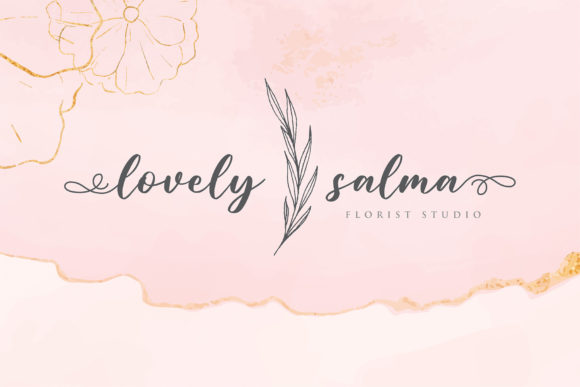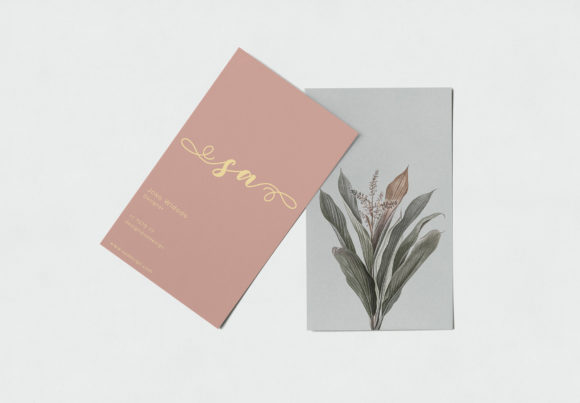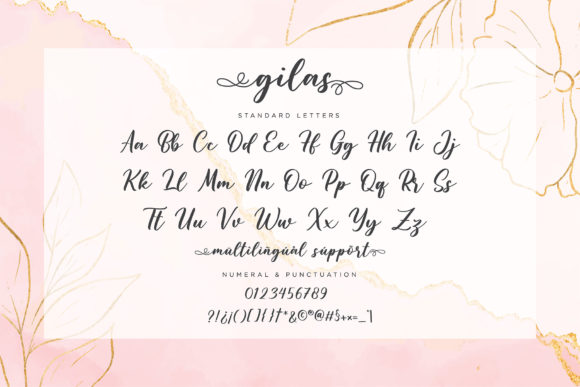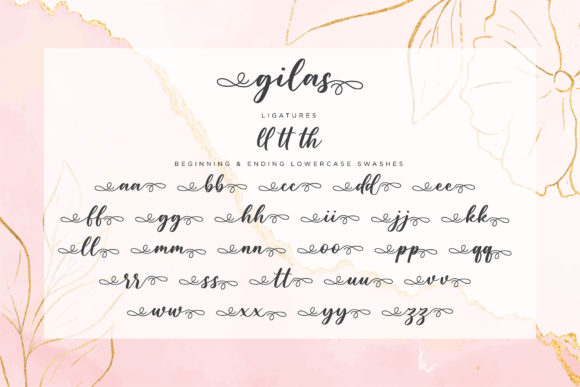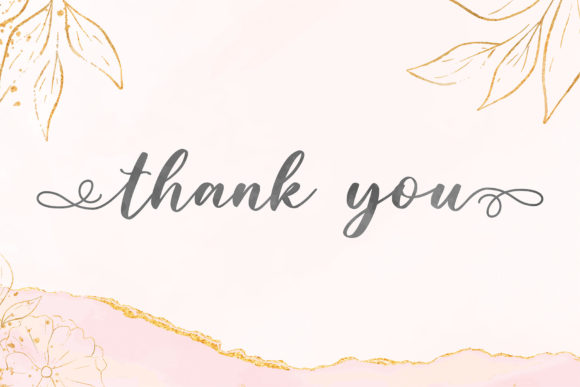
The Magical World of Gilas Font: A Designer’s Delight
I’ll never forget the time I was working on a project for a client who wanted a font that exuded elegance and sophistication. I had spent hours scouring the internet for the perfect font, but nothing seemed quite right. That was until I stumbled upon Gilas Font. ✨ This beautiful, handwritten font has been a game-changer for me, and I’m excited to share its magic with you.
A Personal Review of Gilas Font
- ✨ Timeless elegance: Gilas Font has a classic style that never goes out of fashion.
- ✅ Authentic calligraphy: The font’s handwritten feel is warm and inviting.
- ✅ Friendly feel: Despite its elegance, Gilas Font still feels approachable and friendly.
- ✅ Versatility: This font is perfect for a wide range of design projects, from wedding invitations to branding materials.
While Gilas Font is an amazing font, there are a few things to keep in mind. 🤔
- ⚠️ Limited use of all-caps: While the font looks beautiful in upper case, it’s not the most effective choice for headlines or titles that require all-caps.
- ⚠️ Some glyphs may require manual adjustment: Depending on the design, you may need to adjust some glyphs to get the perfect fit.
- Experiment with OpenType features, such as ligatures and stylistic alternates, to add visual interest to your design.
- Explore the font’s glyphs and OpenType features, such as swashes and ornaments, to add a touch of elegance to your design.
The Story Behind Gilas Font
Gilas Font was created by a talented designer who wanted to bring a touch of magic to the world of typography. Inspired by the elegance of calligraphy and the warmth of handwritten fonts, Gilas Font was born. 🌟
Q: What makes Gilas Font so special?
A: Gilas Font is a unique blend of timeless elegance and authentic calligraphy, making it perfect for a wide range of design projects.
Q: Is Gilas Font easy to read?
A: Yes, Gilas Font is designed to be easy to read, even at small sizes.